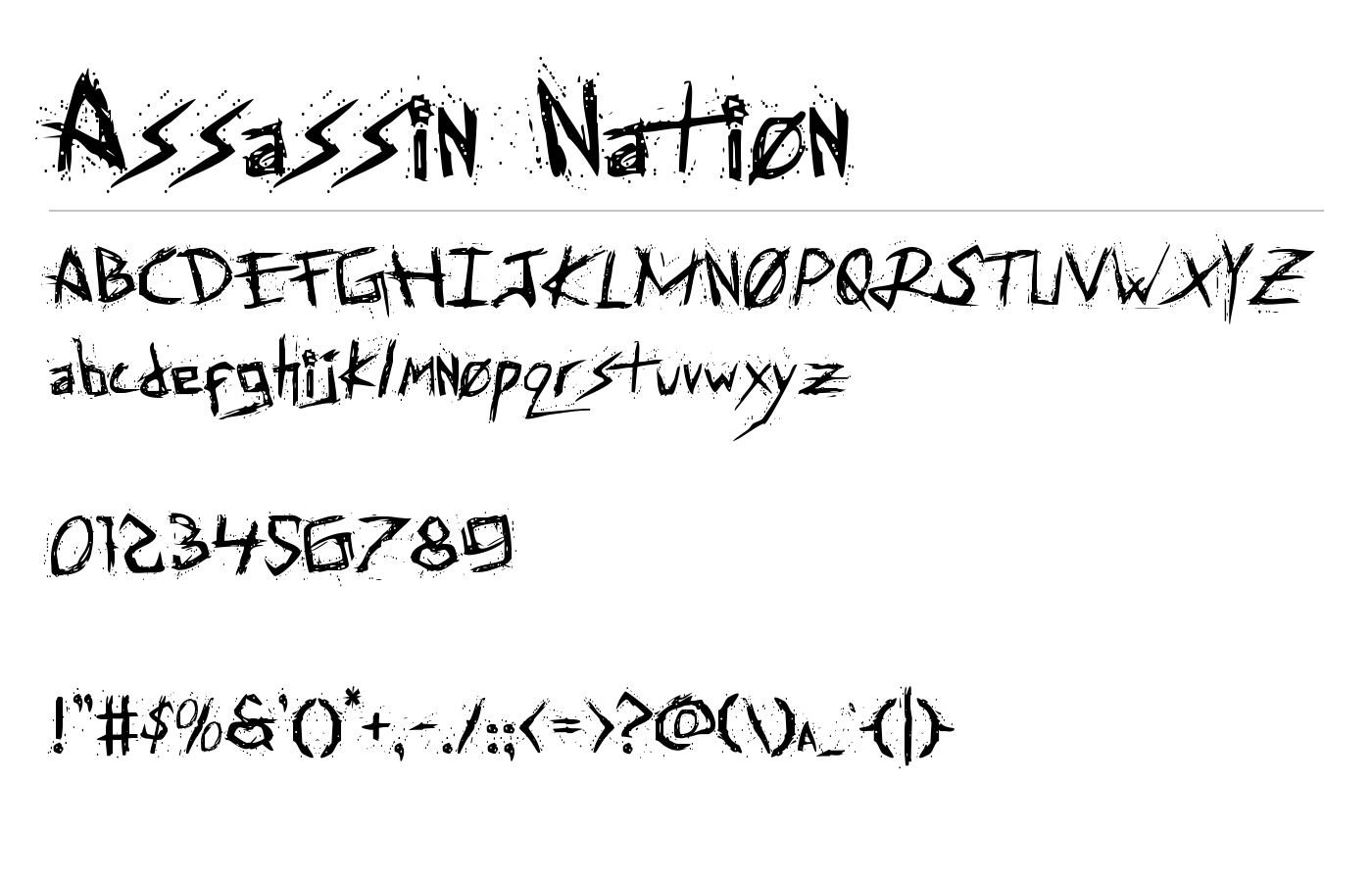
Assassin Nation is an edgy, hand-drawn sans serif font with a rough, distressed texture that creates a bold and chaotic vibe. Its irregular letterforms and sharp, spiky accents give it a rebellious, street-art feel, perfect for designs that want to convey energy, attitude, or an urban underground mood. This font works best for posters, logos, and branding where a gritty, unconventional style is desired.
Assassin Nation Font
About Assassin Nation Font